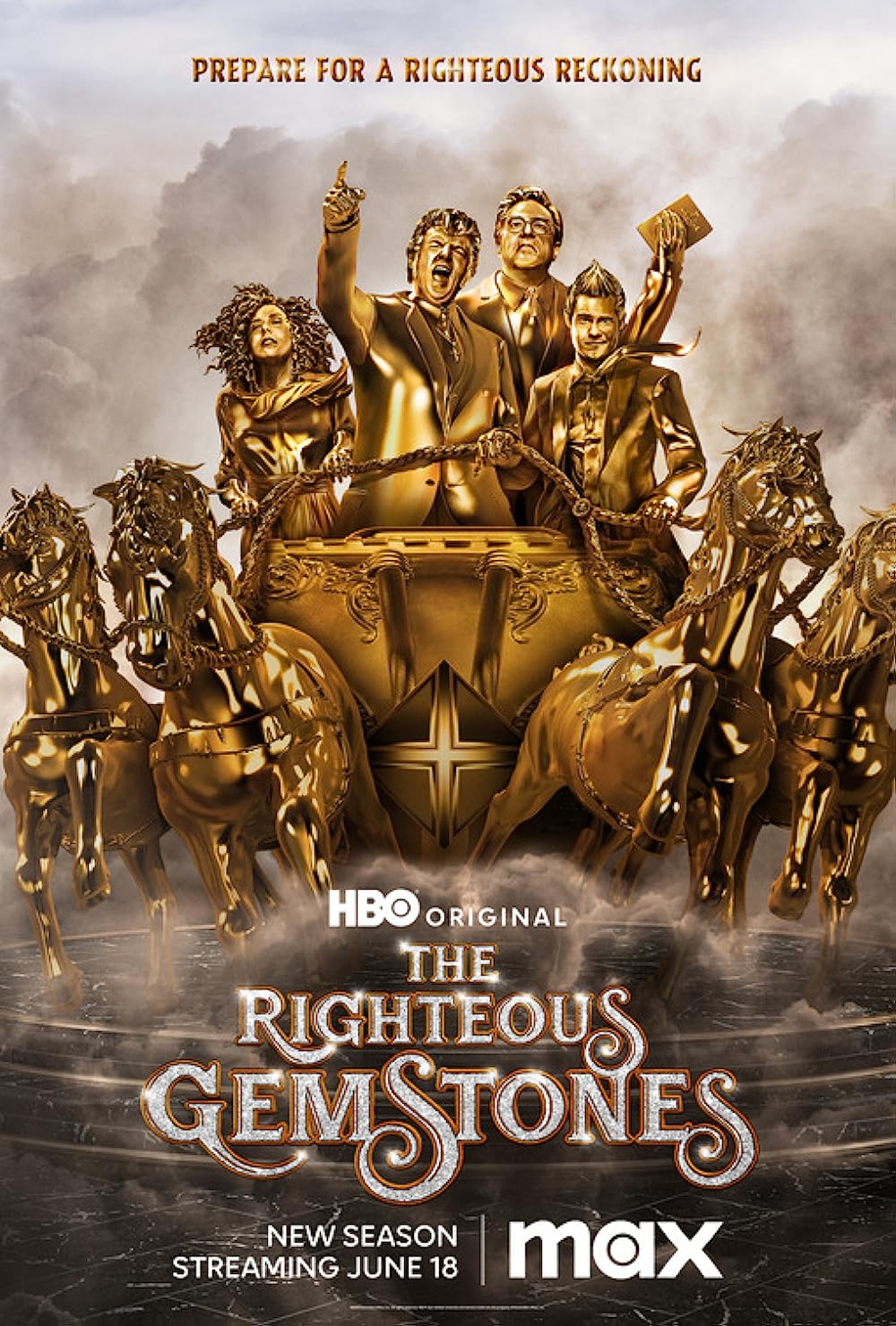
The Righteous Gemstones Font
Festival Budaya XXXI by Ariq Sya is the font used in the logo of "The Righteous Gemstones" with a few small adjustments like the G swash. The font is available for free download in the Fonts Used Section.